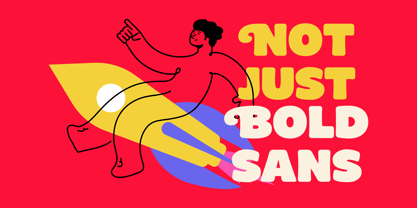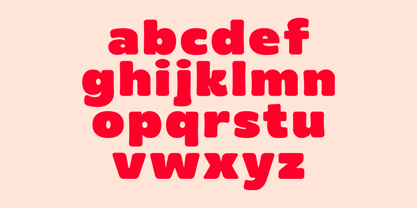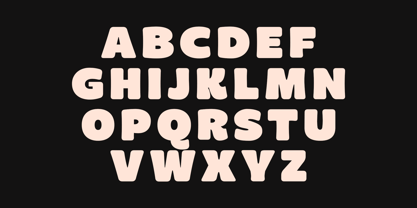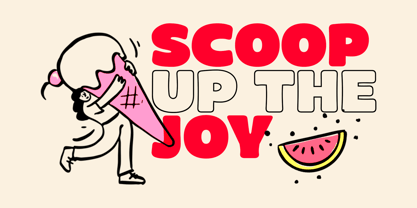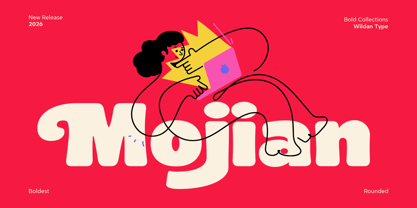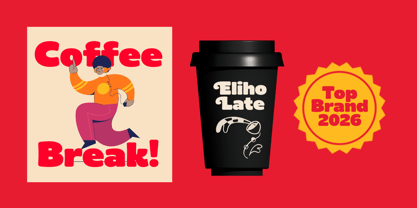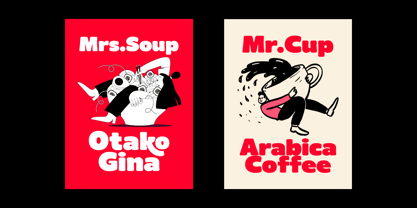
Mojian
by Wildan Type
The Mojian Font Family was designed by Wildan Suprian Syah and published by Wildan Type. Mojian contains 2 styles and family package options. More about this family
Mojian Font, the Heaviest and happiest font on the block! Design with maximum boldness in mind, this chubby sans-serif typeface combine the nostalgic funk of the 70s with a modern, playful twist. Every letter is crafted to take up space and grab attention. its rounded corners and heavy weight make it feel soft like marshmallow but strong enough to carry your brand's massage. Whether your aare dsigning trendy, fun, groovy, Mojian brings the energy you need. Include : Regular and Outline Style with . Alternates Characters Ready . Punctuation, Number, and Symbol . Uppercase and Lowercase . Opentype Features